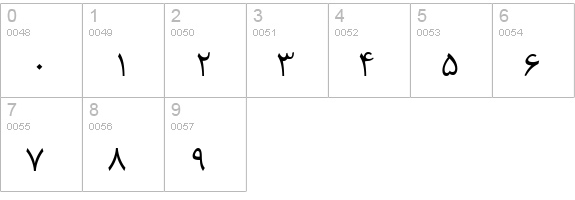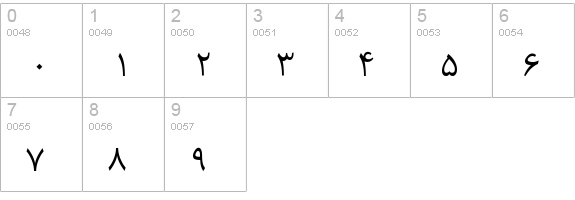
B Roya font is a modern and stylish typeface designed to bring a touch of elegance to your designs. With its sleek lines and sophisticated curves, this font is perfect for a wide range of projects, from branding to editorial design. The versatility of B Roya font makes it a great choice for both headlines and body text, adding a sense of sophistication to any design. What's even better is that B Roya font is available for free download at FontsMarket.com. This means you can easily access this beautiful font and use it in your projects without any cost. Don't miss out on this amazing opportunity to elevate your designs with the stunning B Roya font. Download it now and start creating with style and elegance.